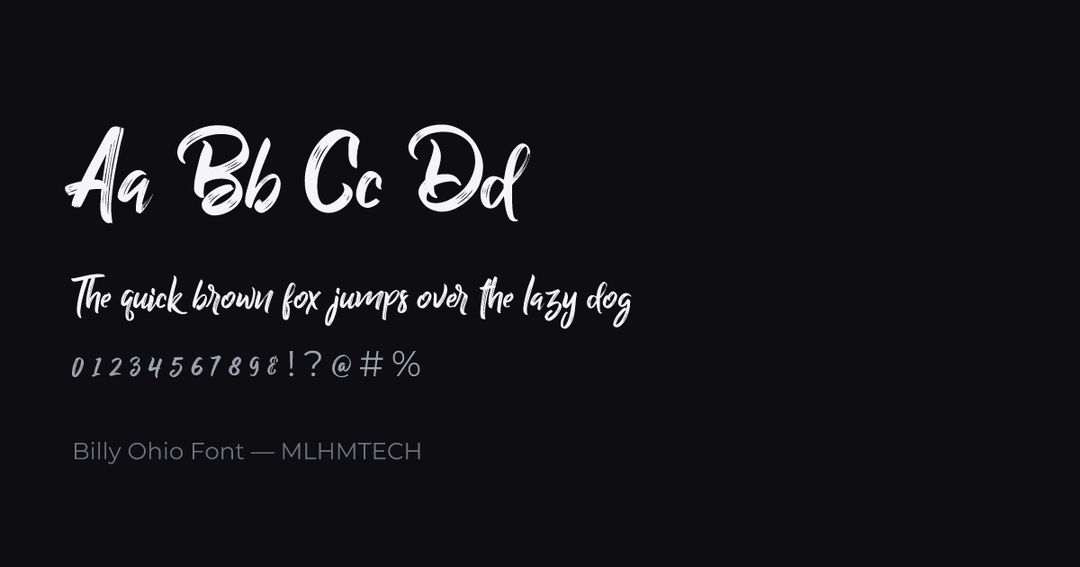
Billy Ohio Font
Billy Ohio is a distinctive handpicked font in OTF format, ideal for adding character to your designs. Its unique style works well for branding, posters, and creative projects.
Billy Ohio is a handpicked font that brings a unique, handcrafted feel to your designs. With its distinctive letterforms, it's perfect for creating eye-catching headlines, logos, and branding materials. The OTF format ensures high quality and compatibility with most design software.
This font is part of a curated collection, ensuring it stands out from standard typefaces. Whether you're working on a poster, social media graphic, or product packaging, Billy Ohio adds a touch of personality and creativity. Its versatility makes it suitable for both digital and print applications.